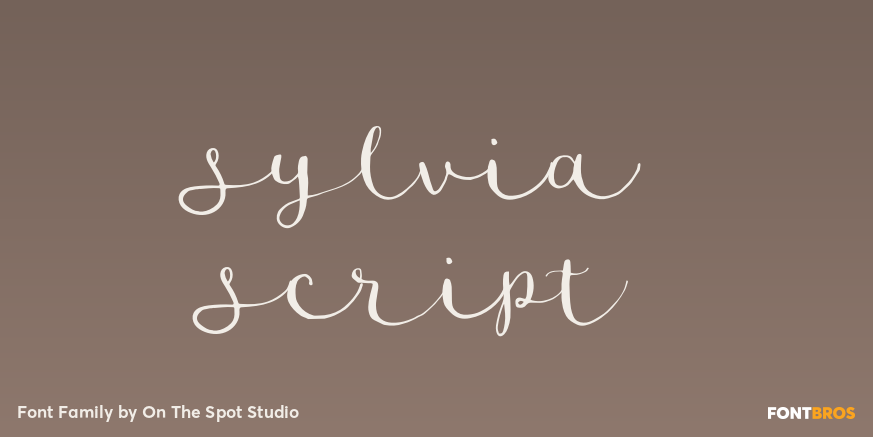
Sylvia Script
About Sylvia Script
Sylvia script is a super simple script font, in all lowercase letters waiting to be designed with! As of right now, the font is ONLY lowercase letters. No numbers, no punctuation. its meant to stand out on its own. I will be adding swashes and other…